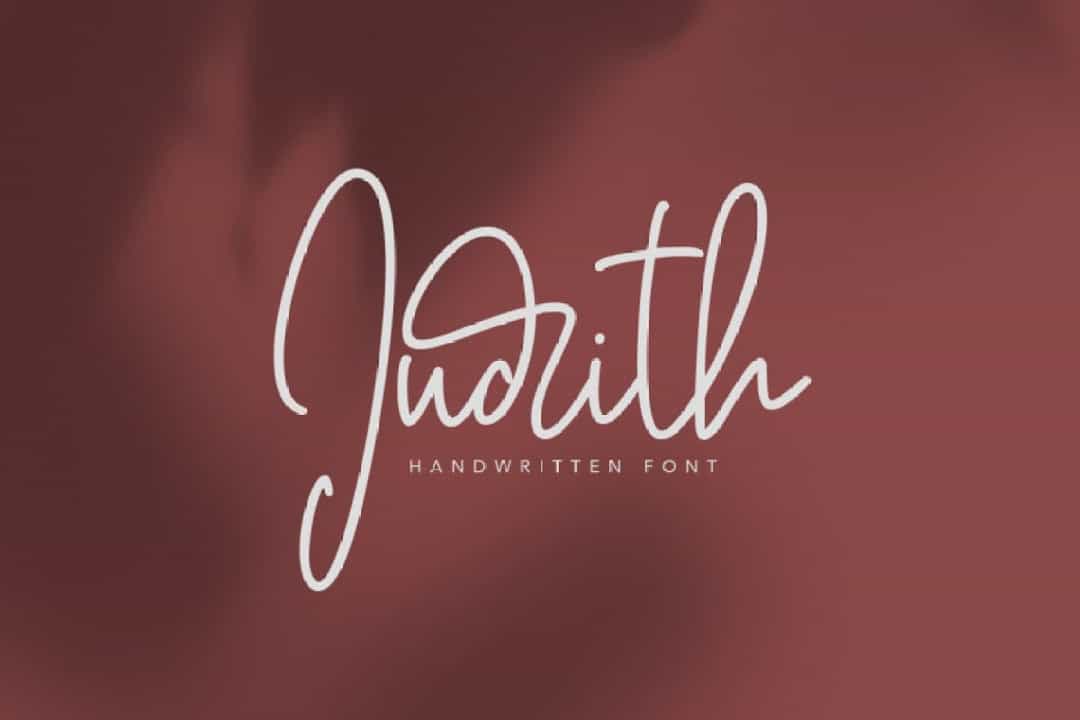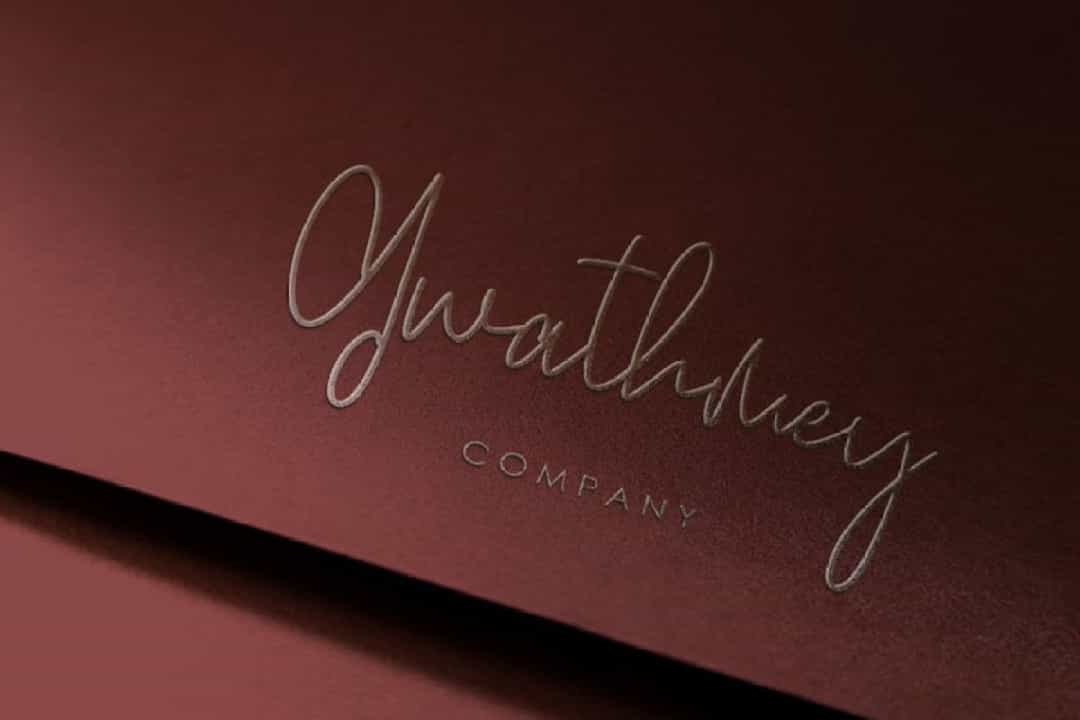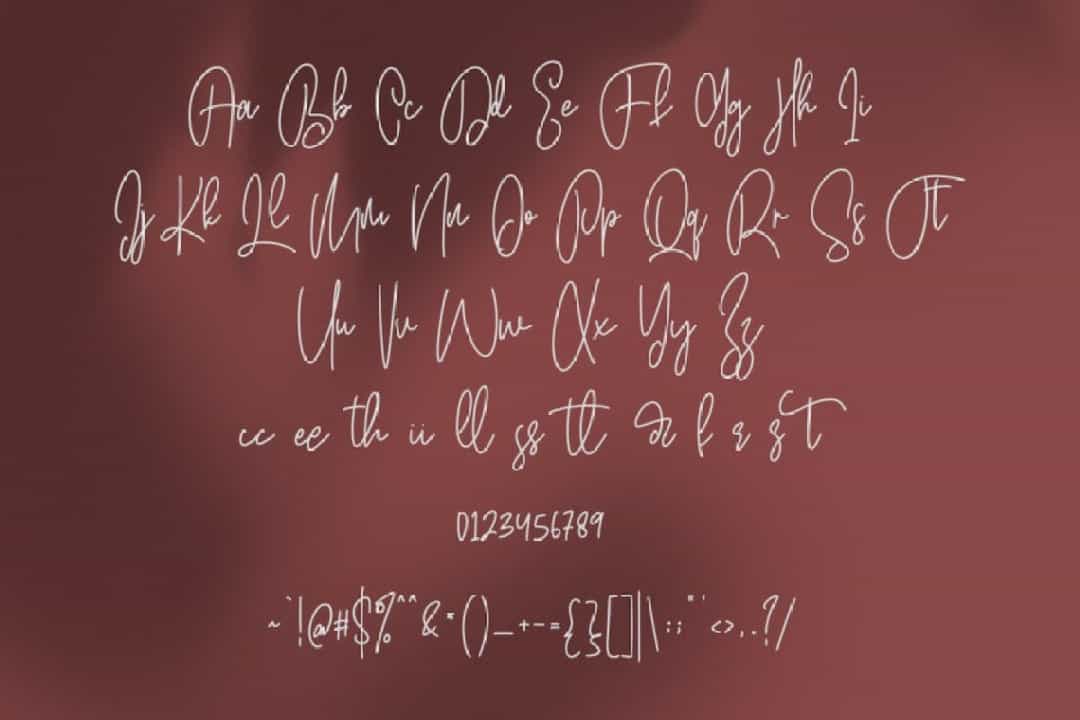
Judith is an elegant handwritten font and is rapidly considered as one of the best handwritten fonts in the industry. Featuring timeless calligraphy designs on your work but at the same time it will give your work a whole new look! Get it today to go further with it.